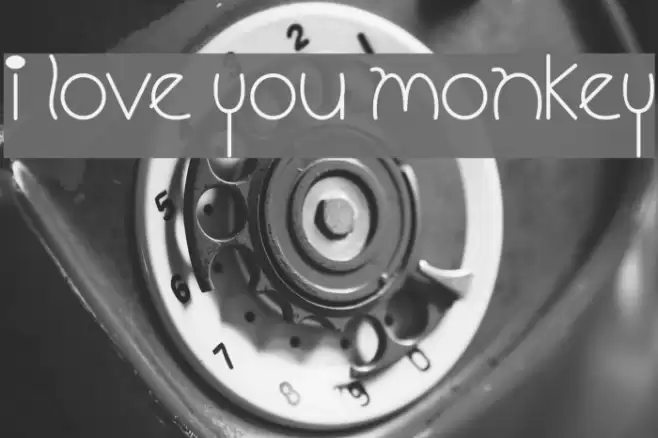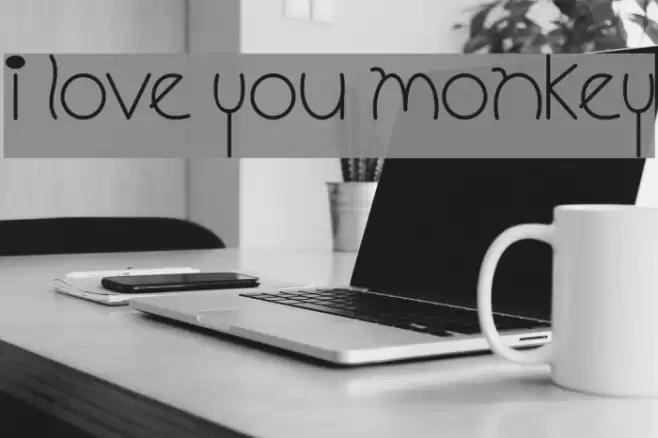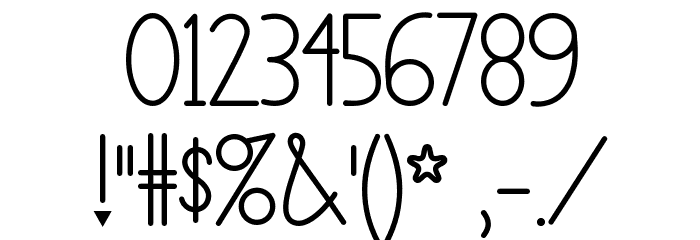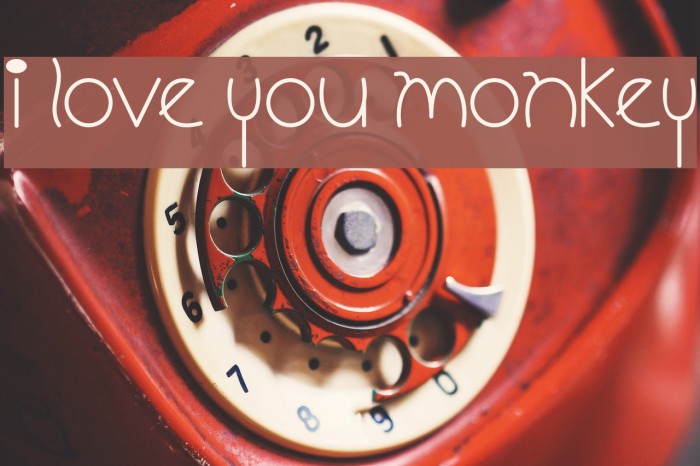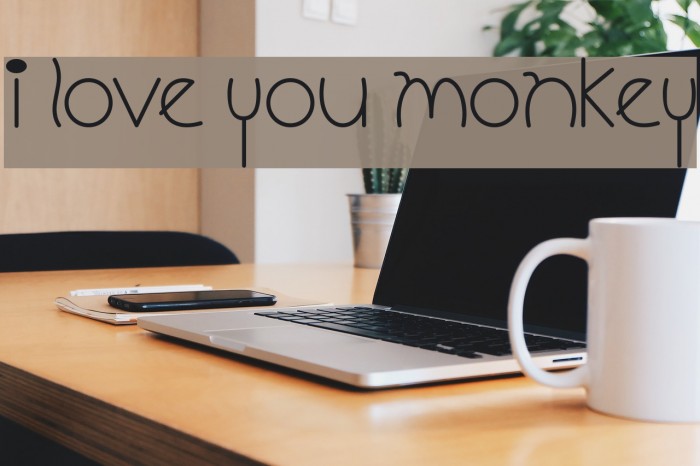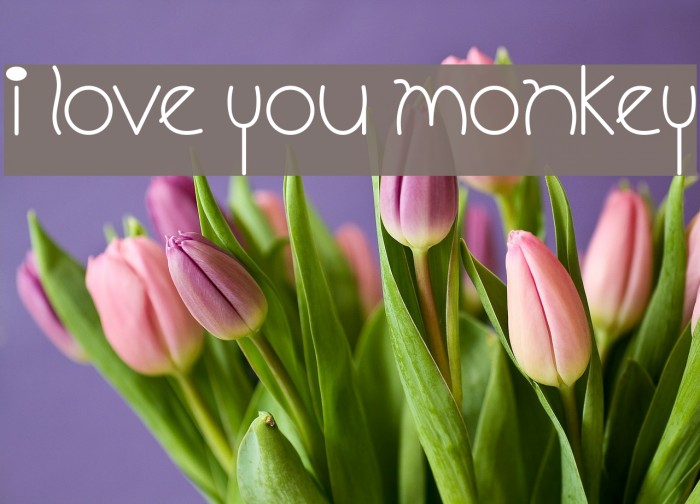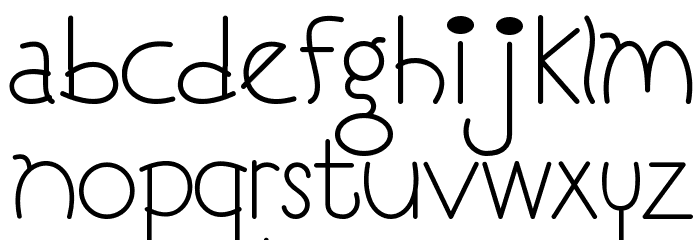
I Love You Monkey Font
I Love You Monkey Description
This playful and whimsical font features a unique blend of rounded and elongated letterforms, giving it a friendly and approachable appearance. The characters have a consistent stroke width, contributing to a clean and modern look. The lowercase letters exhibit a slight slant, adding a touch of dynamism, while the uppercase letters maintain a more upright stance. The numerals are clear and easy to read, with a similar style to the letters. Special characters are creatively designed, maintaining the overall playful theme. This font is well-suited for projects that require a fun and engaging aesthetic.
A playful and whimsical font with rounded, elongated letterforms and consistent stroke width from Uncategorized fonts.
- Proposed Projects: Ideal for children's books, playful branding, greeting cards, and creative posters.
- Overall Style: Playful, Modern